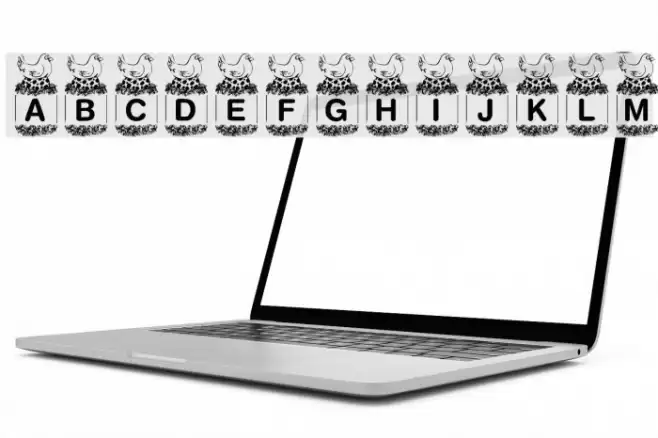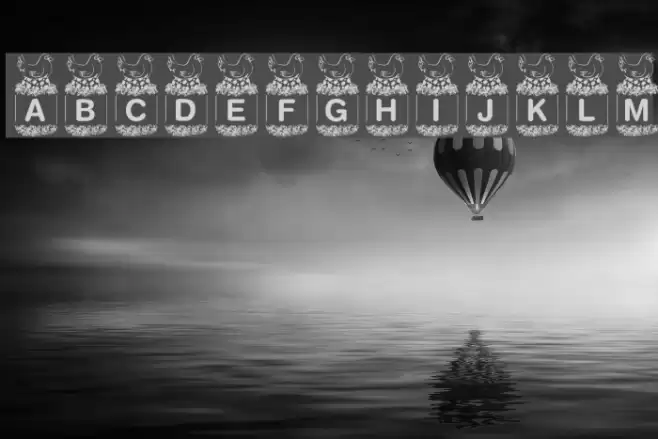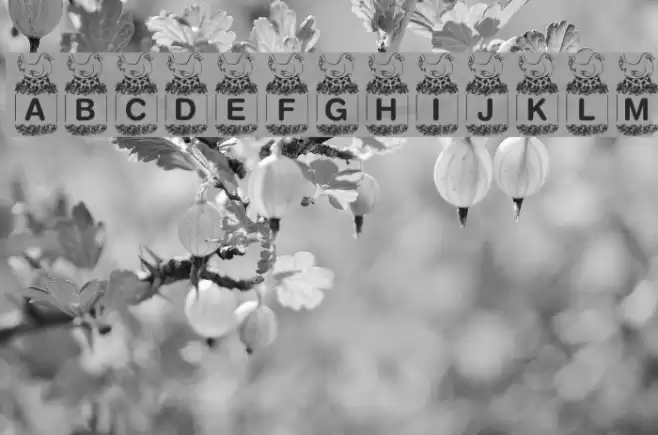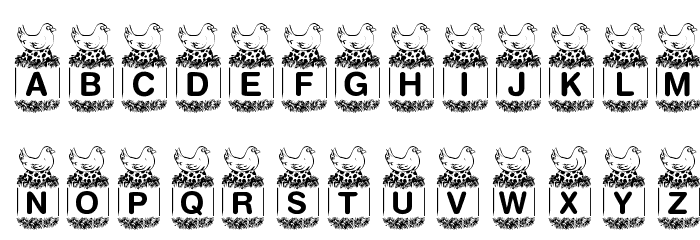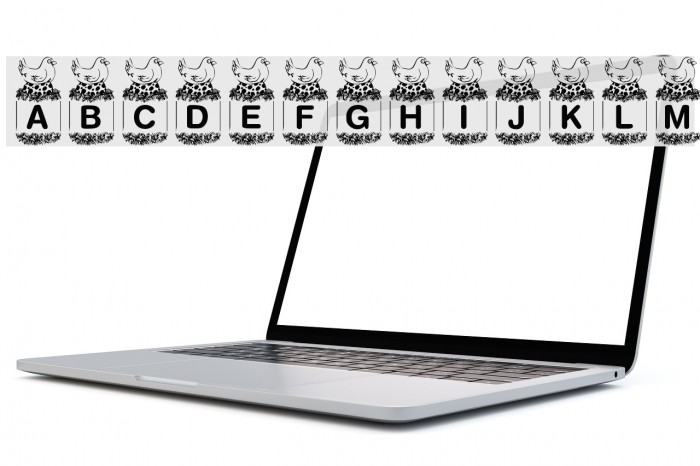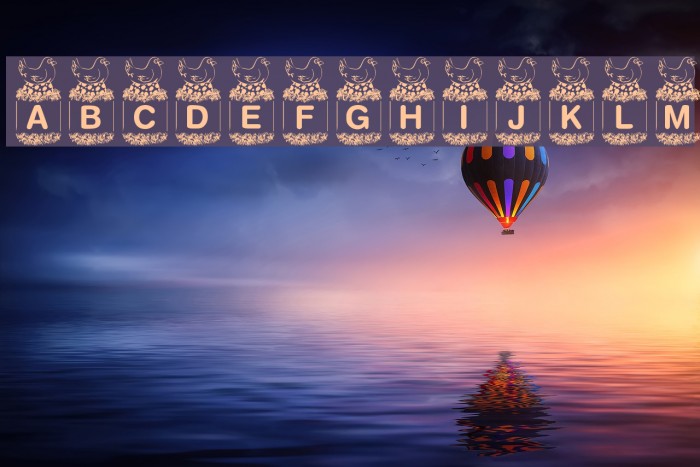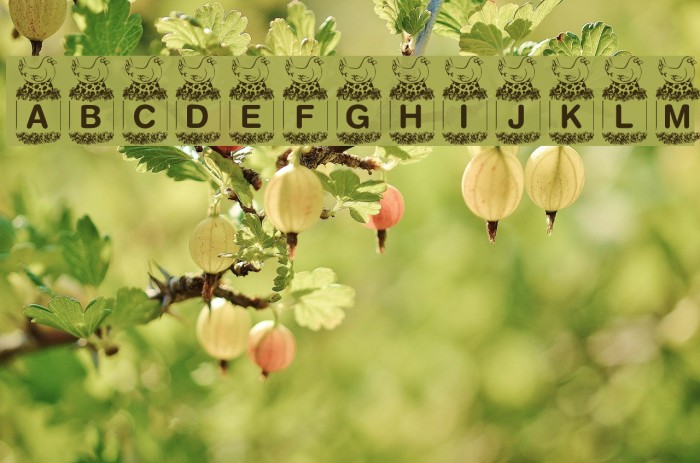
KR Birdy Font
KR Birdy Description
This font features a unique and decorative style, incorporating intricate bird illustrations above each character. The letters are bold and capitalized, set within a rectangular frame that adds a structured look. The overall design is highly ornamental, with the bird motifs adding a whimsical and artistic touch. This font is ideal for projects that require a standout, artistic flair, such as invitations, posters, or branding that seeks to convey creativity and elegance. The combination of bold lettering and detailed illustrations makes it a striking choice for decorative purposes.
A decorative font with bold letters and intricate bird illustrations from Uncategorized fonts.
- Proposed Projects: Ideal for invitations, artistic posters, and creative branding projects.